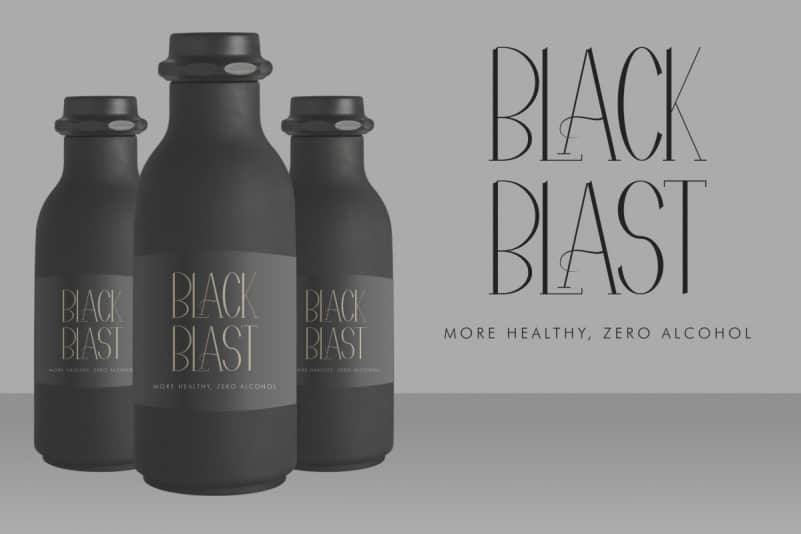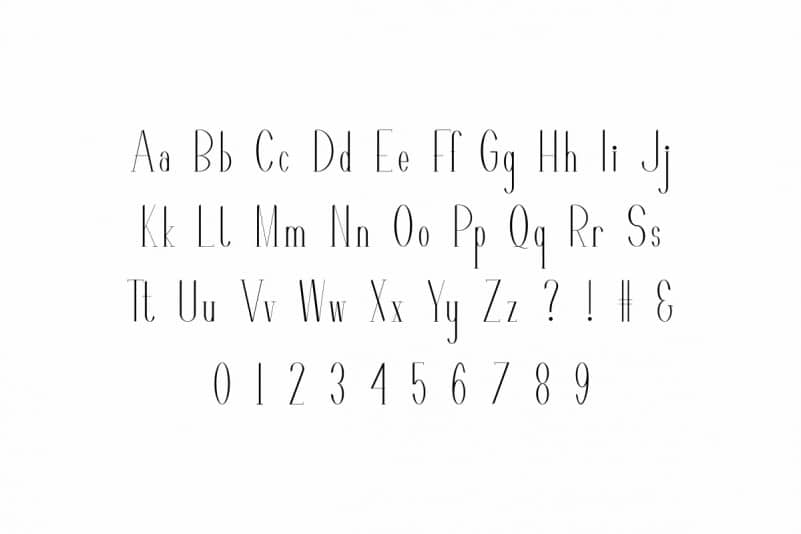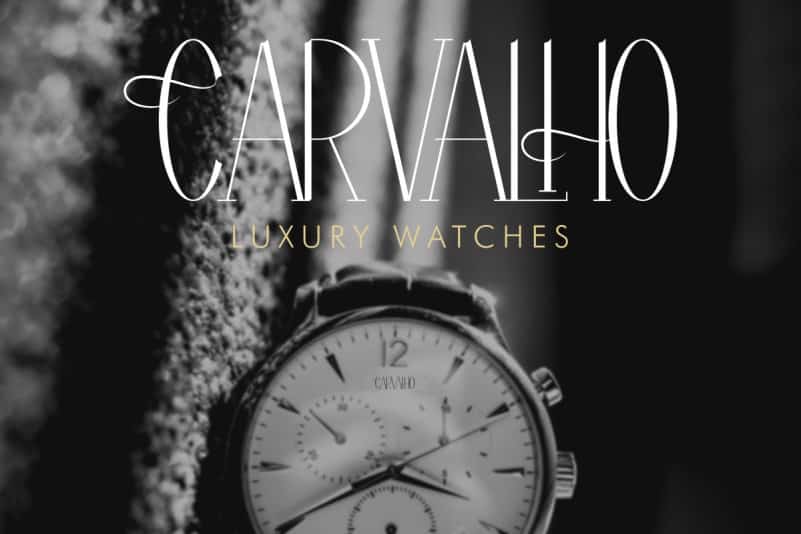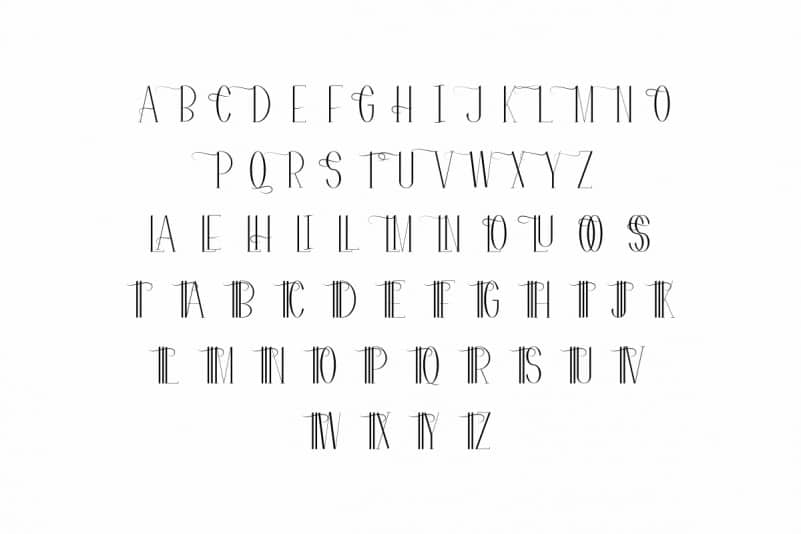
Flatters Serif Font Duo
Flatters Serif Font Duo will be great for any projects (require extended license) including : branding, logo, stationery, business card, signage, flyer, brochure etc.